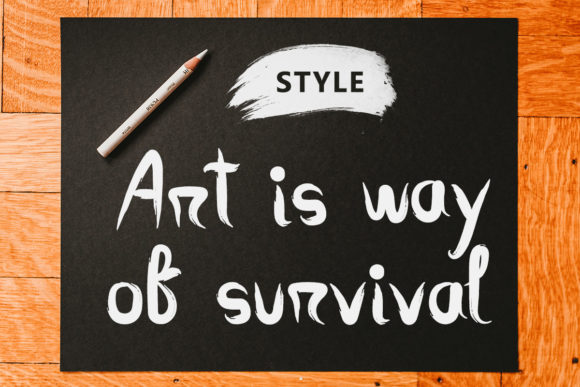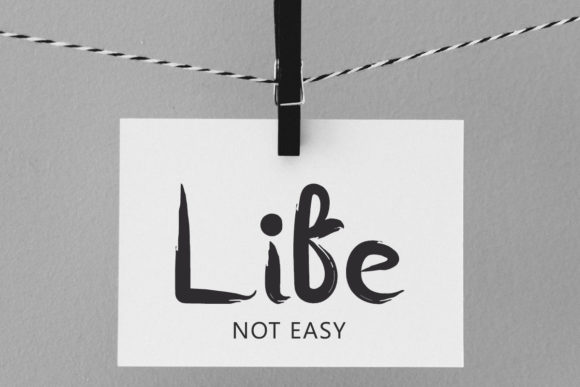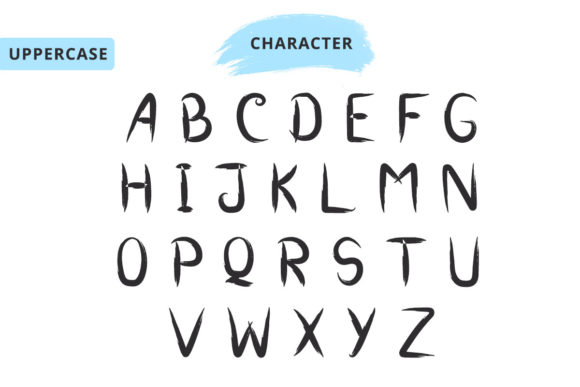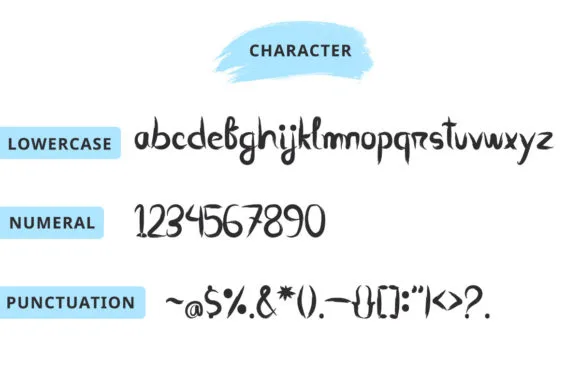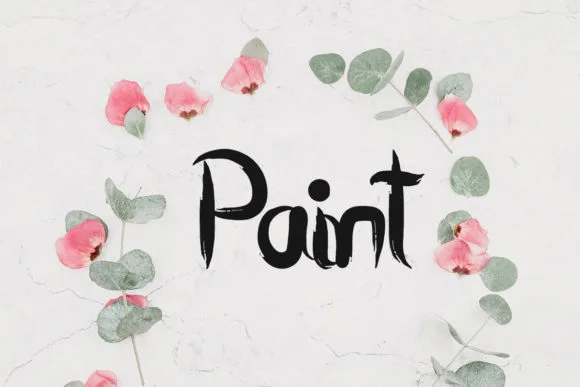
Paint Font
About Paint Font
Paint is an artistic and vibrant color font that emulates the look and feel of paintbrush strokes. With its natural and unique style, Paint adds a touch of creativity and texture to your designs. This font is perfect for a wide range of projects and can elevate any design with its expressive and handcrafted appearance.
Whether you’re working on posters, invitations, logos, or any other design that requires a dynamic and artistic touch, Paint is a fantastic choice. Its brush-like strokes and splatters give your text a sense of movement and personality, making it visually captivating and engaging.
The versatility of Paint allows it to be used in various contexts and themes. From playful and whimsical designs to edgy and grungy aesthetics, this font adapts to different styles and moods effortlessly. Let your imagination run wild and explore the limitless possibilities that Paint brings to your creative projects.
Unleash your creativity and let Paint be your artistic companion, adding a splash of creativity and energy to your designs. The only limit is your imagination, so embrace the unique style of Paint and watch your designs come to life with a vibrant and expressive touch.